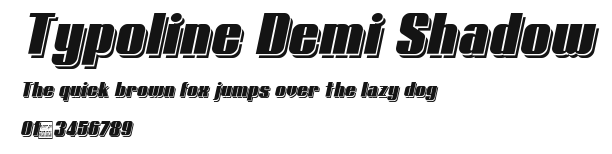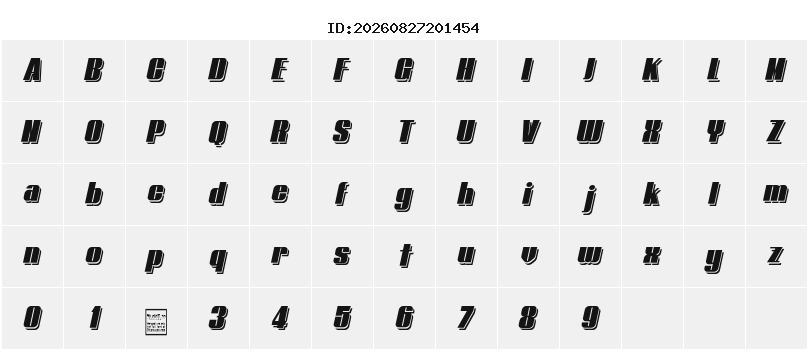
Typoline Demi Shadow Preview
• Font Name: Typoline Demi Shadow
• Designer: Mehmet Abacı
• Manufacturer: StudioTypo
About Typoline Demi Shadow.otf
Typoline Demi Shadow.otf is a modern, elegant sans-serif font designed for ultimate readability and visual harmony. Perfect for branding, headlines, web design, and print materials.